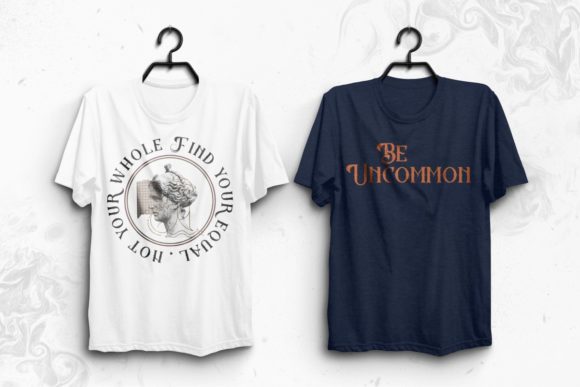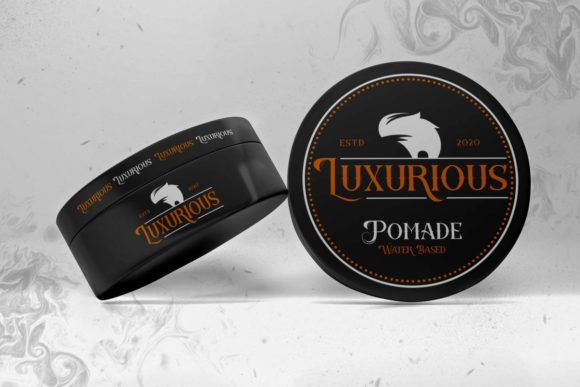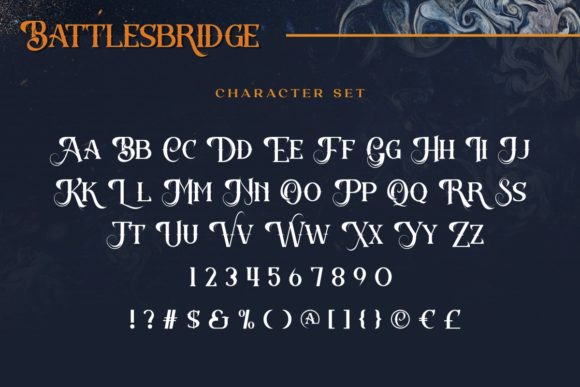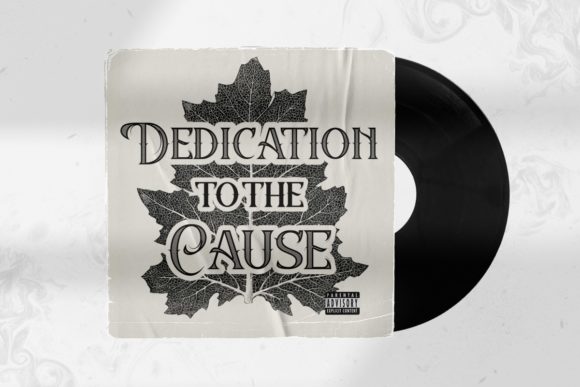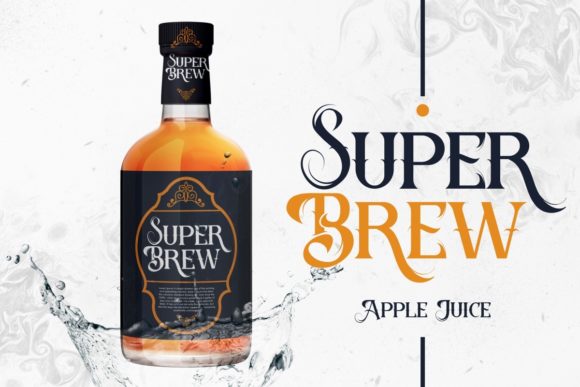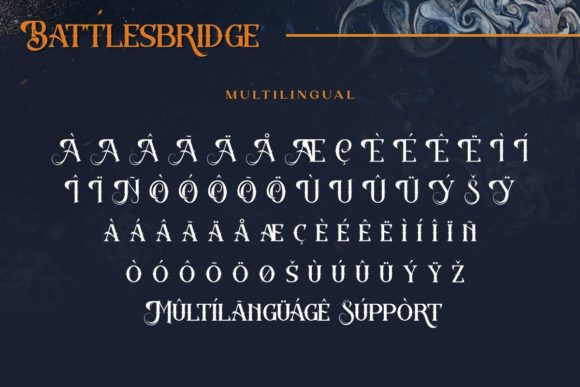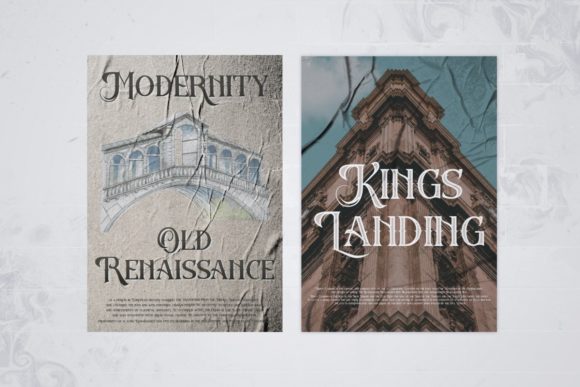
Battlesbridge
Battlesbridge: A Stylish and Whimsical Horror-Themed Slab Serif Font
Battlesbridge is a distinctive slab serif font that combines style with whimsy and a horror-inspired aesthetic. This unique typeface is perfect for projects that require eye-catching typography, especially those in the spooky genre.
Key Features of Battlesbridge
• Stylish Design: Offers a fashionable and trendy look that stands out.
• Whimsical Touch: Adds a playful and fanciful element to designs.
• Horror Style: Incorporates a spooky aesthetic perfect for Halloween themes.
• Bold Appearance: Features strong, eye-catching letterforms.
• Curly Flair: Includes decorative curls that add character and charm.
• Slab Serif Structure: Maintains the characteristic thick serifs of slab fonts.
Ideal Uses for Battlesbridge
Battlesbridge is particularly well-suited for:
• Halloween-themed designs and promotions
• Horror movie posters and titles
• Spooky event invitations
• Gothic-inspired branding
• Book covers for horror or mystery genres
• Haunted house advertisements
When using Battlesbridge in your projects, consider these ideas:
• Use for headlines to maximize its bold and whimsical impact
• Pair with simpler fonts for body text to create contrast
• Experiment with color to enhance its horror-themed style
• Try different sizes to highlight its unique curly details
Battlesbridge is an excellent choice for designers seeking a font that blends style, whimsy, and horror elements. It stands out with its unique character and ability to elevate spooky-themed projects. Whether you’re working on logo designs for Halloween events or creating layouts for horror-themed content, Battlesbridge offers a perfect mix of boldness and playful eeriness.
Moreover, this font can boost your designs with its distinctive style. From eye-catching posters to engaging social media graphics, Battlesbridge creates memorable typography that appeals to those seeking a spooky yet stylish aesthetic. It’s versatile enough for various uses, from vintage-inspired horror designs to more playful Halloween layouts.
Furthermore, Battlesbridge adapts well to different moods within the horror genre. It can create a whimsical yet eerie atmosphere for family-friendly Halloween content or aim for a more intense and unsettling mood in darker designs. Its flexibility allows it to work in both vintage-style horror projects and modern spooky designs. Lastly, for those wanting to add a touch of horror with a stylish twist, this font can even enhance seasonal creations with its unique, curly flair.